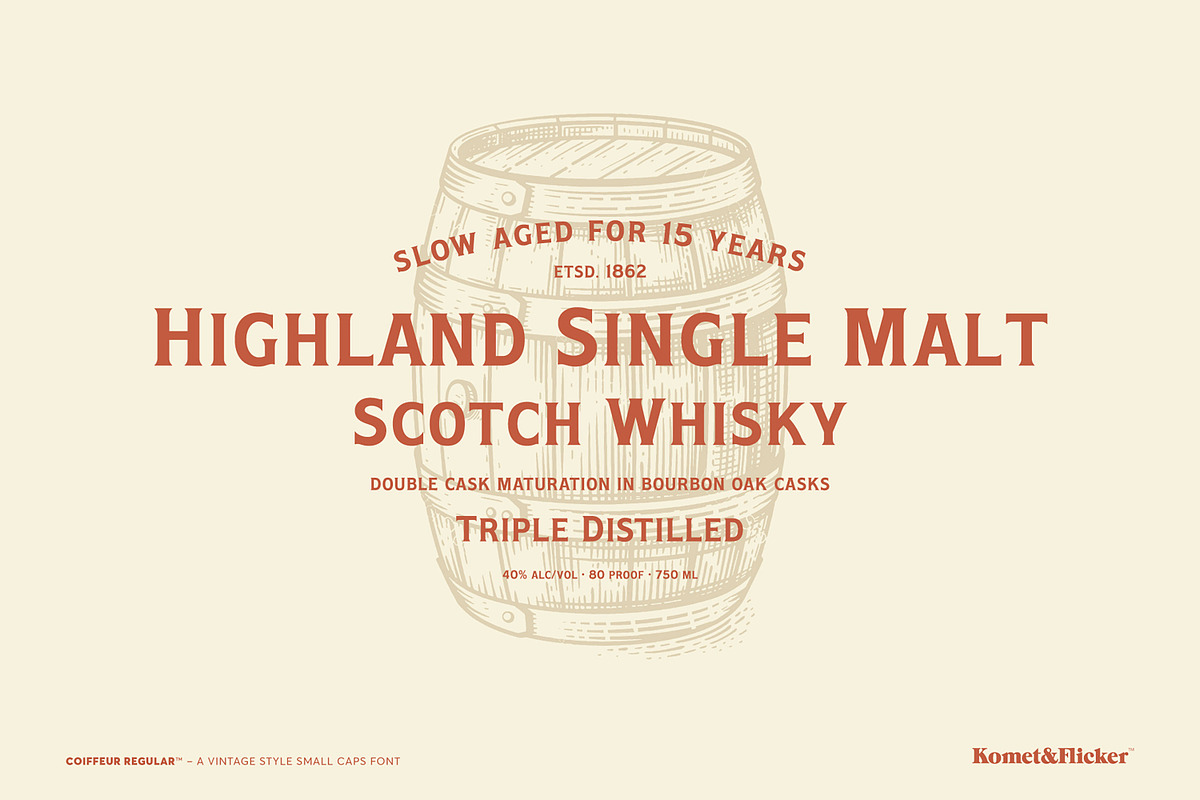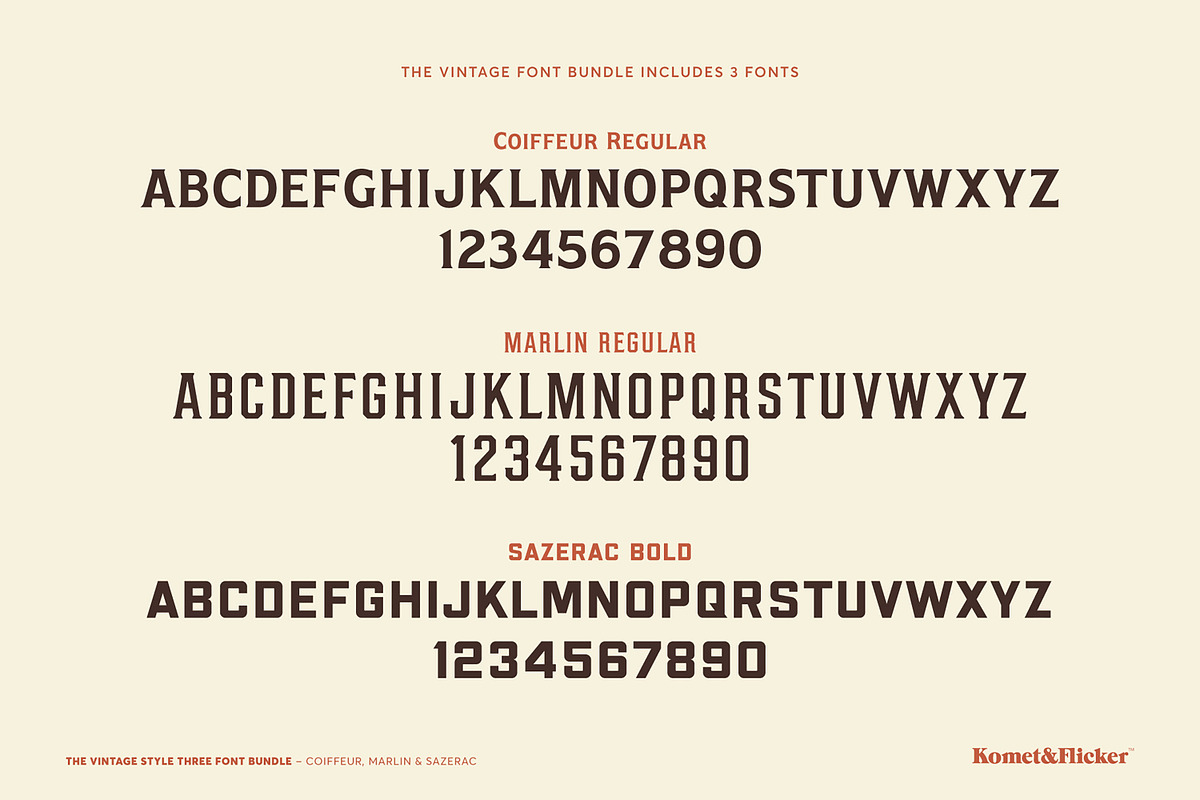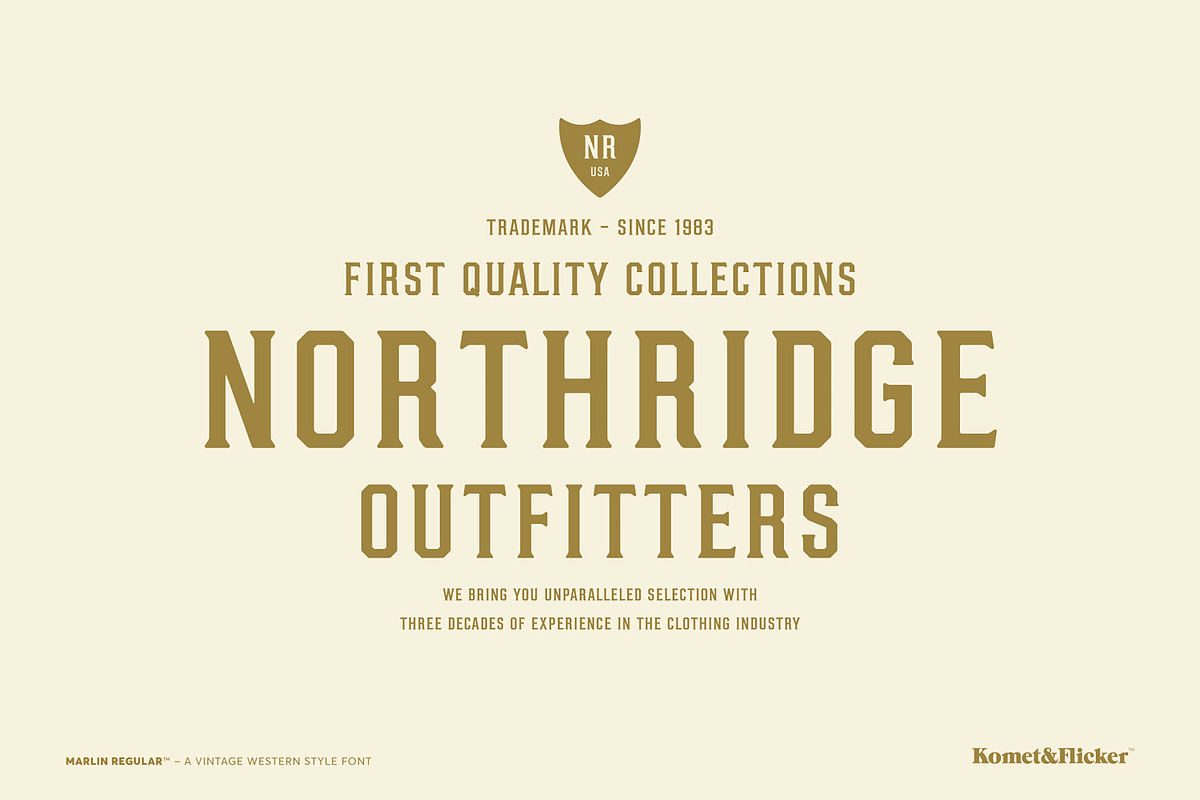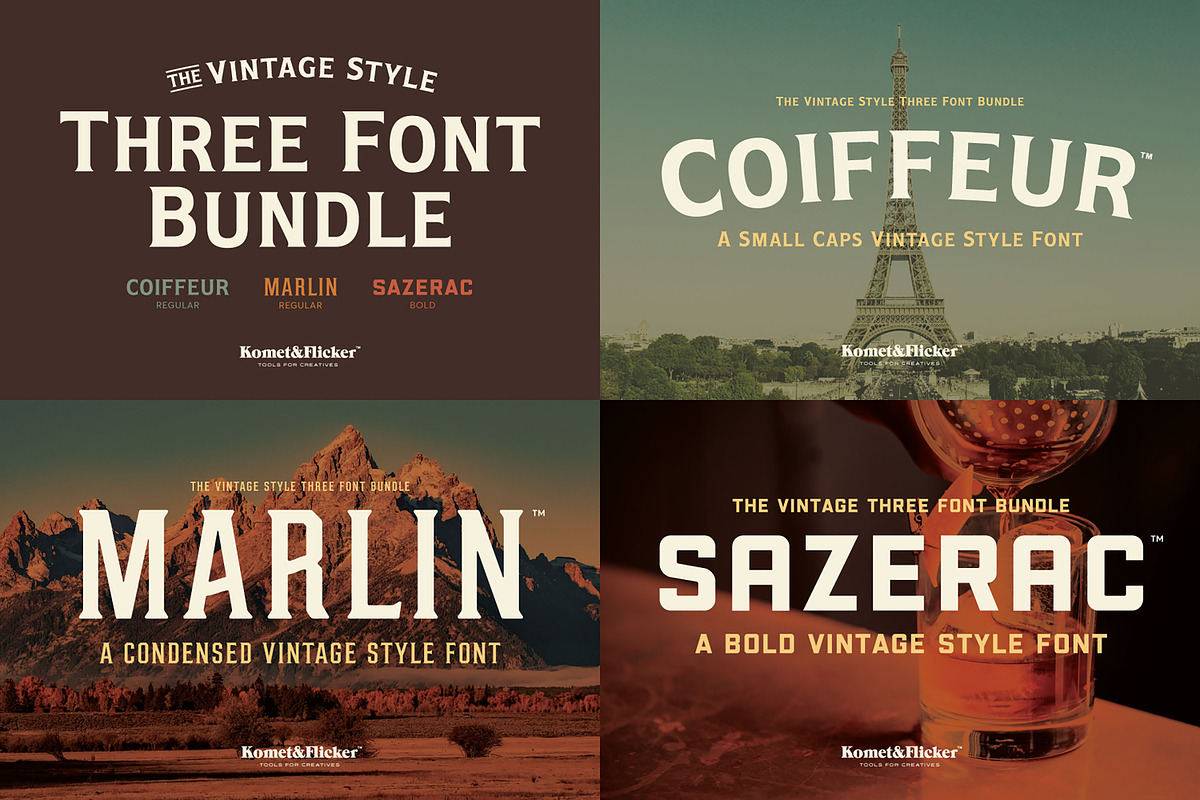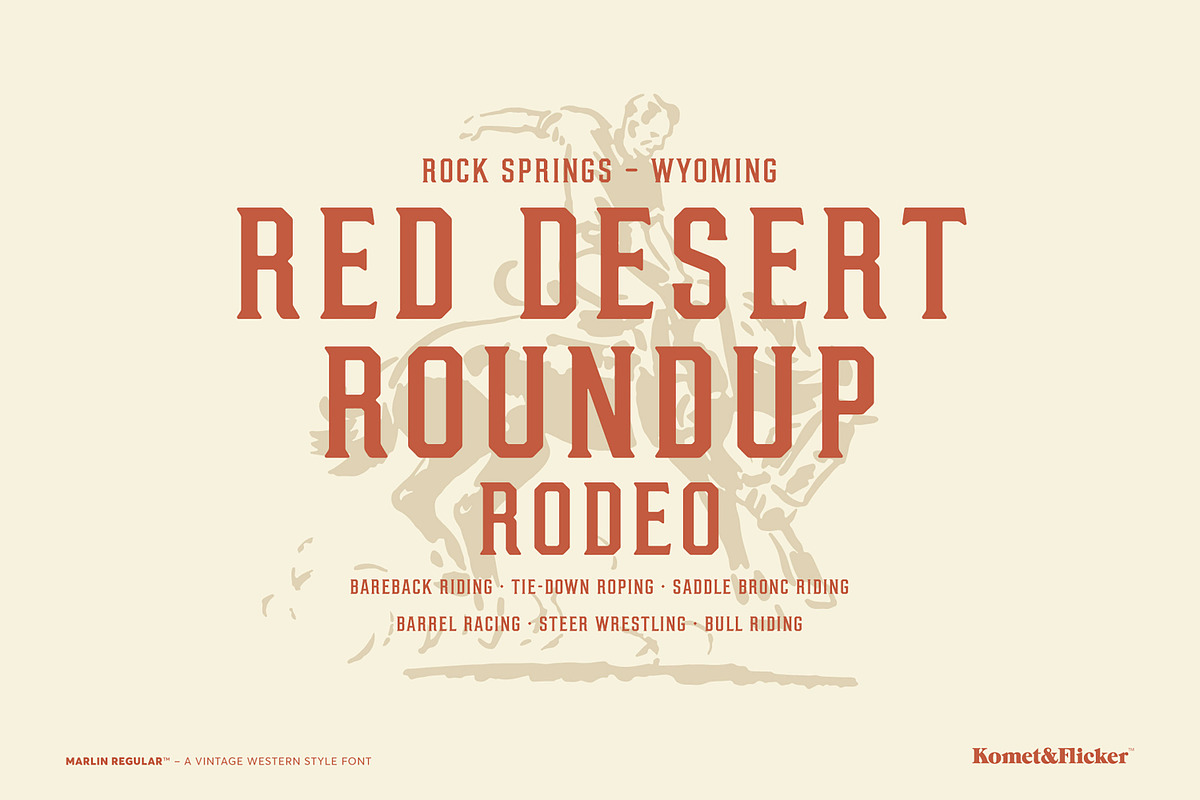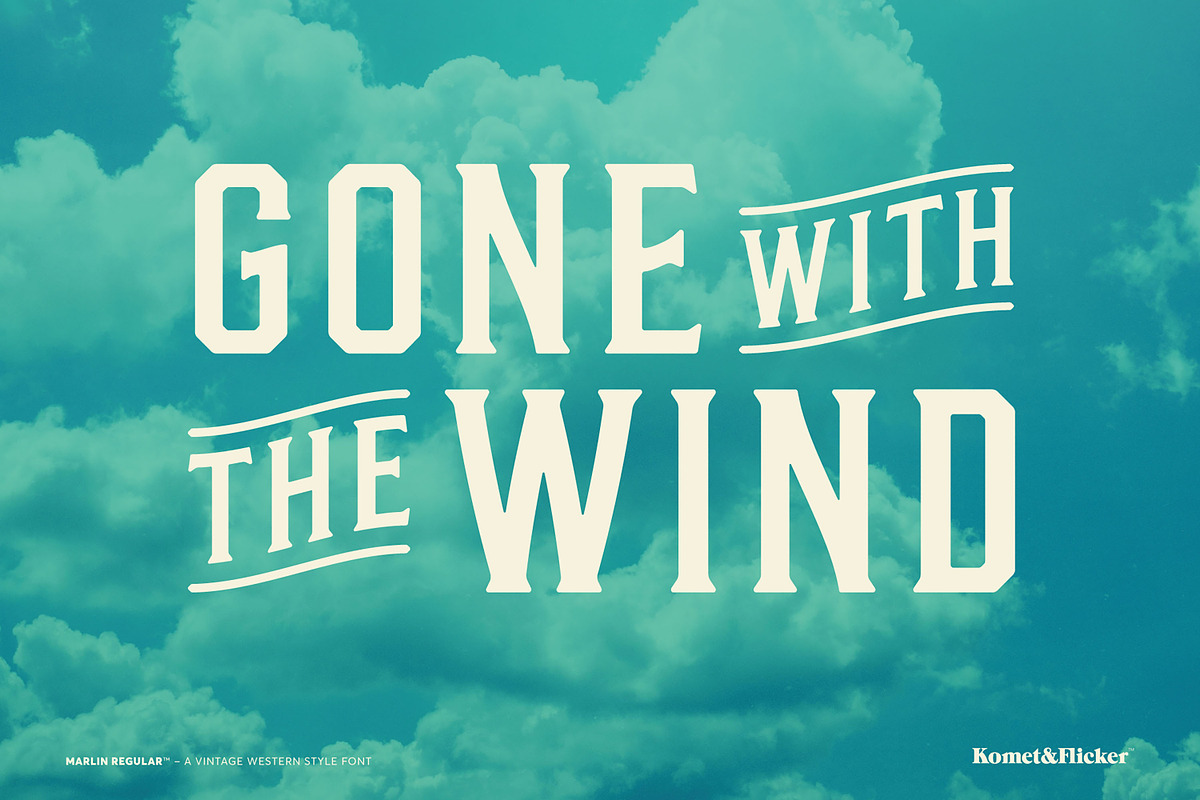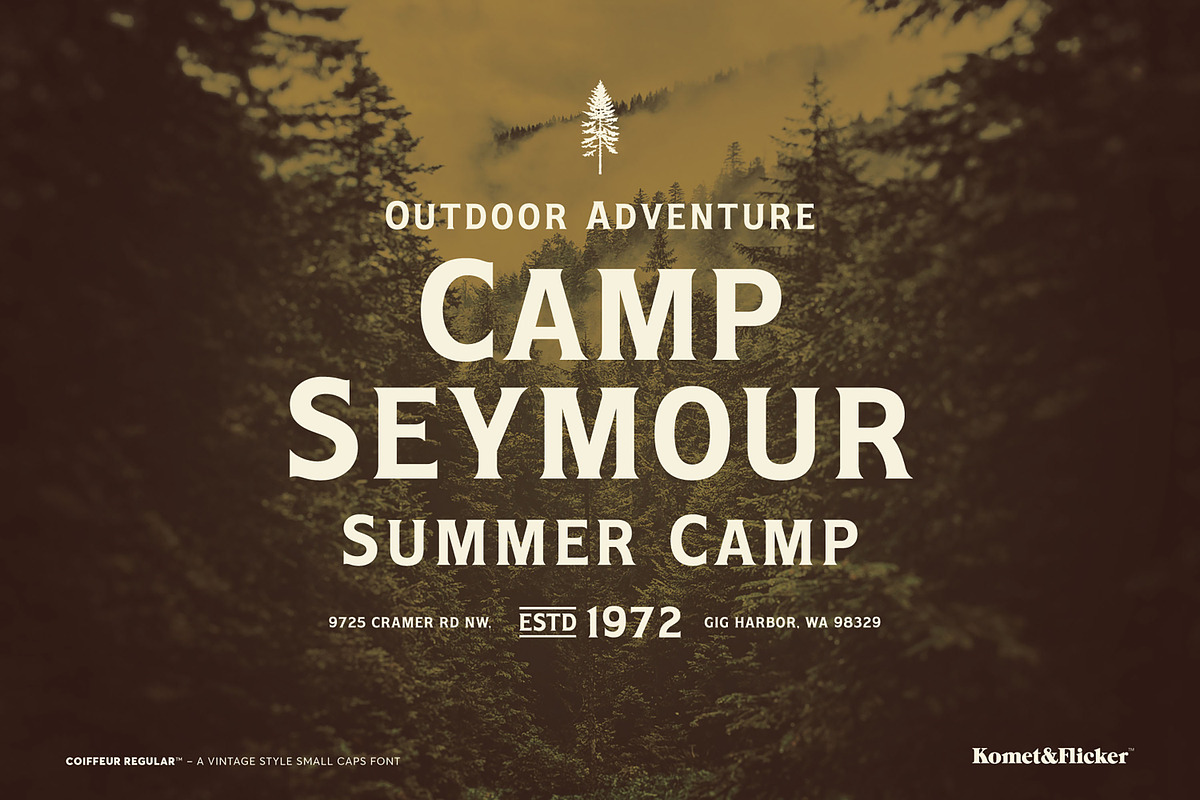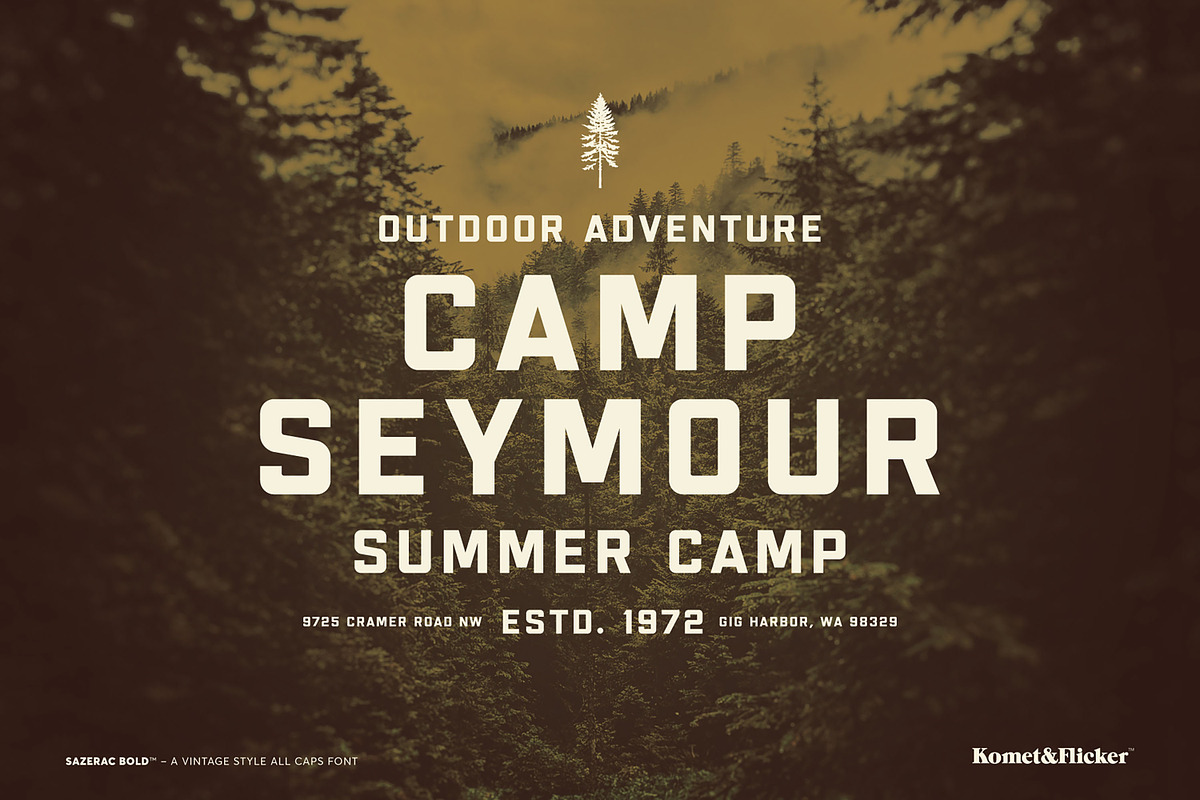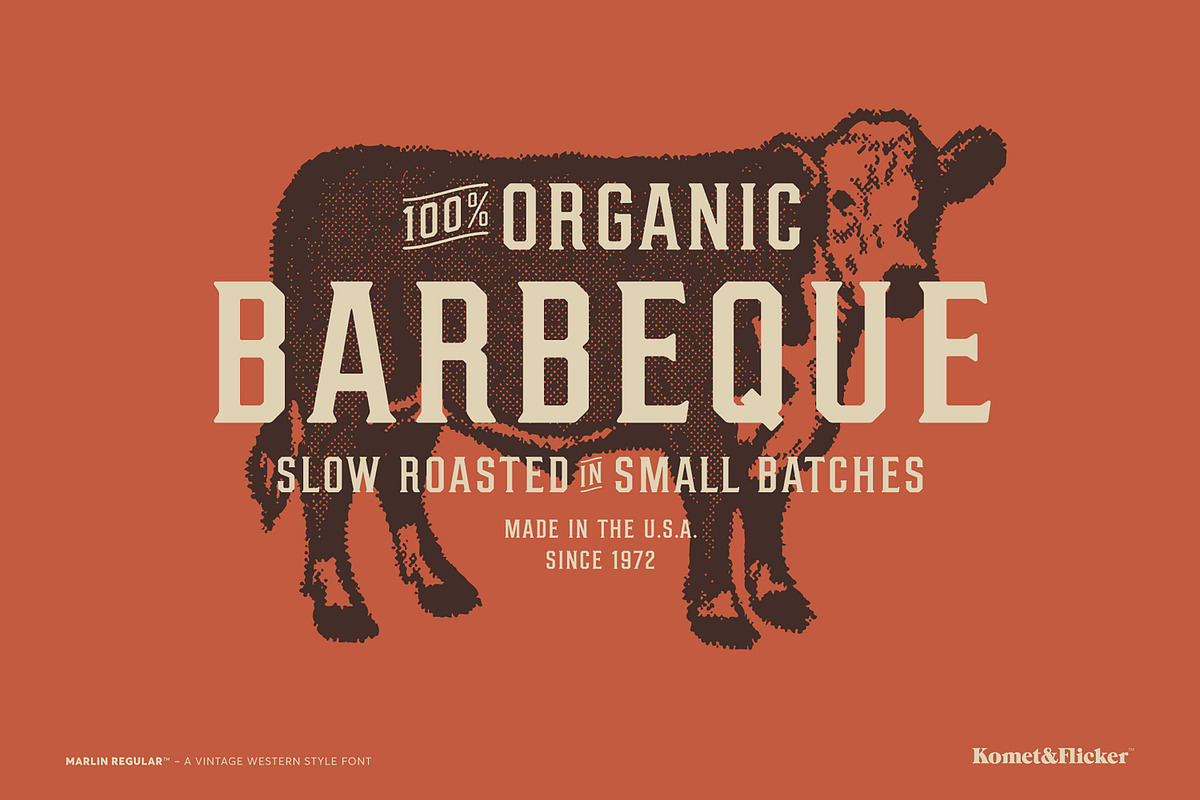
The Vintage Style Three Font Bundle
Elevate your designs with The Vintage Style Three Font Bundle, a curated selection from three of our most popular font families: Coiffeur, Marlin, and Sazerac. This remarkable bundle features three distinct fonts that embody a charming vintage and rustic aesthetic, perfect for adding an authentic touch to any creative endeavor.
Whether you’re crafting logos, packaging, or marketing materials, these fonts provide a versatile palette to mix and match, allowing you to create a variety of vintage styles that resonate with warmth and character.
THIS BUNDLE INCLUDES
Coiffeur Regular
Marlin Regular
Sazerac Bold